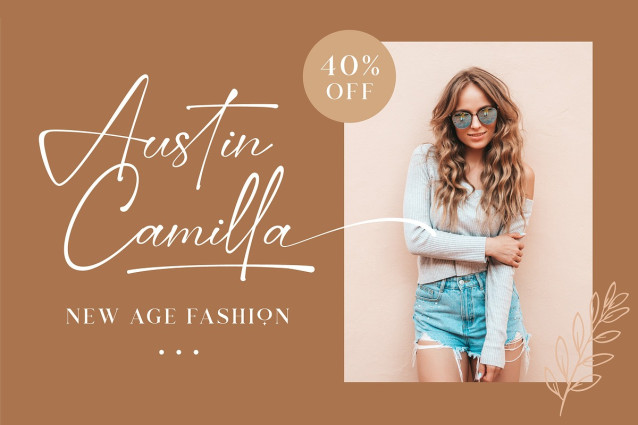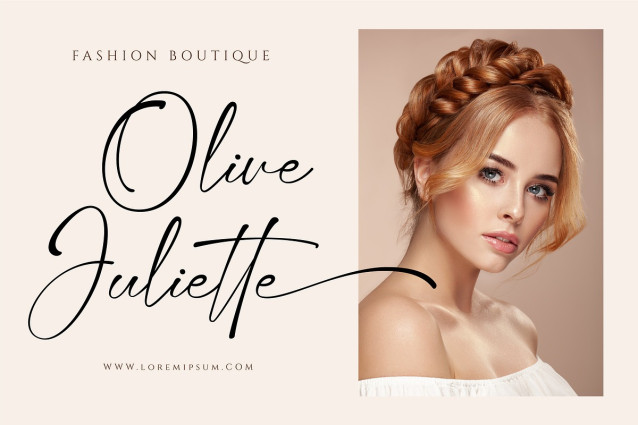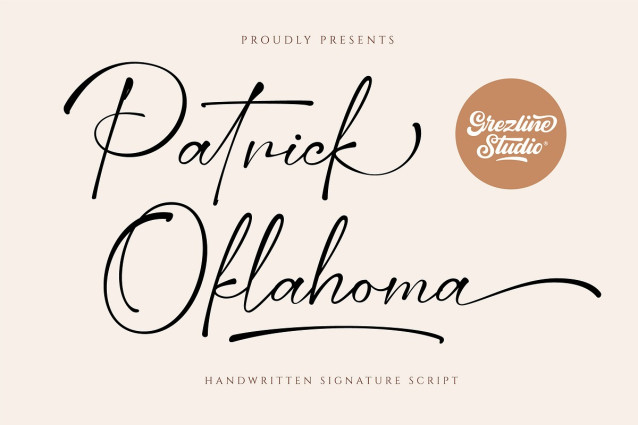
Patrick Oklahoma Handwriting Font
Patrick Oklahoma Handwriting Font is a handwritten signature script font. This font has a luxurious and stylish feels that is perfect for fashion-related design. Patrick Oklahoma font is also usable in a wide range of works such as logos, covers, posters, quotes, product packaging, merchandise, social media and much more!